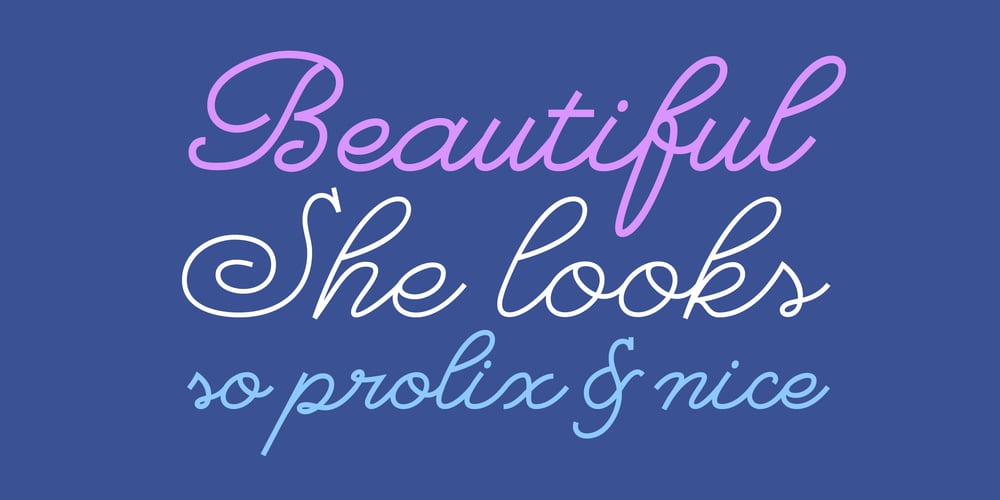
So Prolix Font Family was designed by Alejandro Paul, Sinergia Lab and published by Sudtipos. So Prolix contains 2 styles and family package options. A tribute to calligraphy, with the thinness of modern times. So Prolix is presented as a calligraphic typography with uniform sketches and very particular features. Its harmonious and soft rhythm will impregnate every word with a great personality. Elegant, strong and harmonious, So Prolix irradiate its own style on every character. Rescuing particular features, So Prolix is even a modern typography and useful, giving distinction to words.